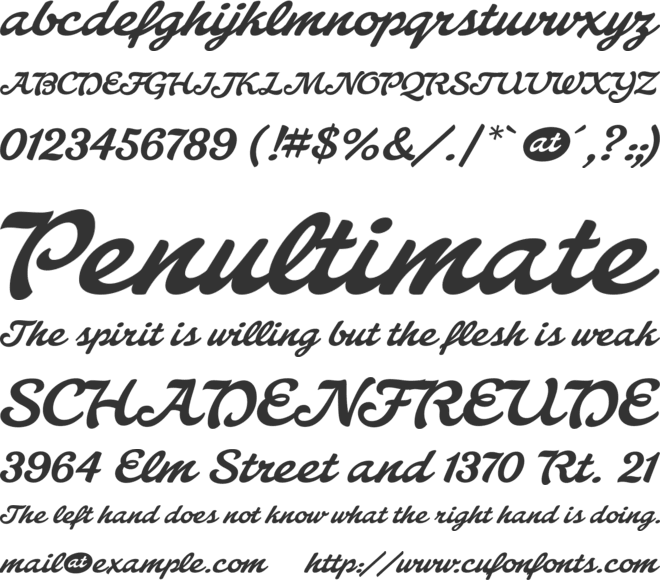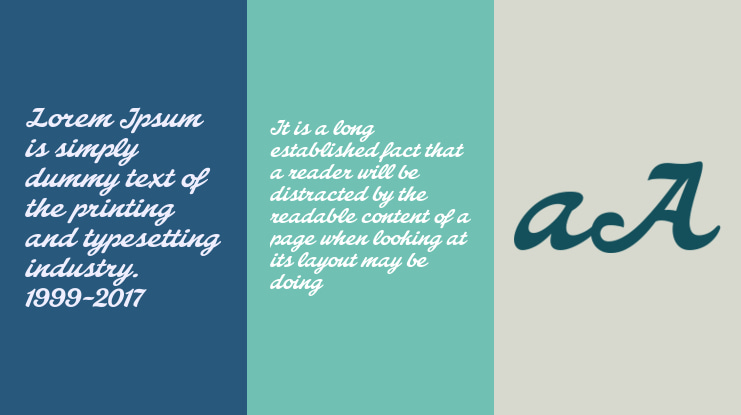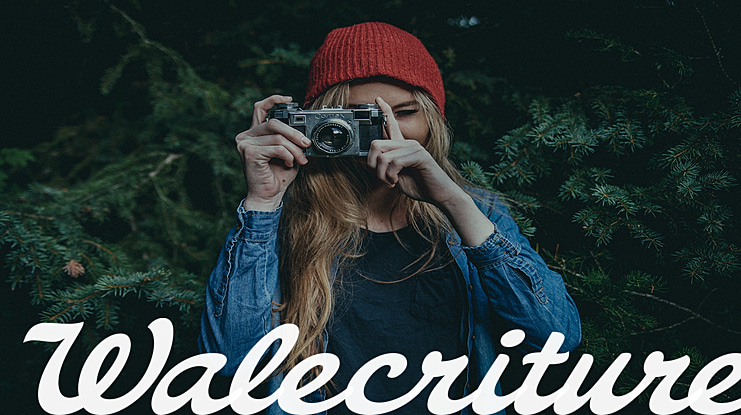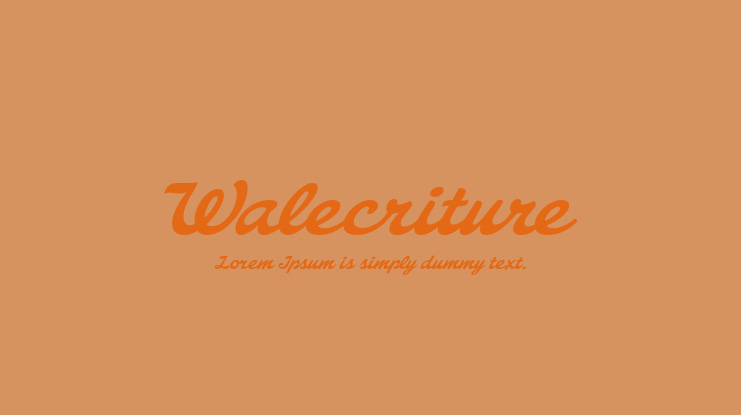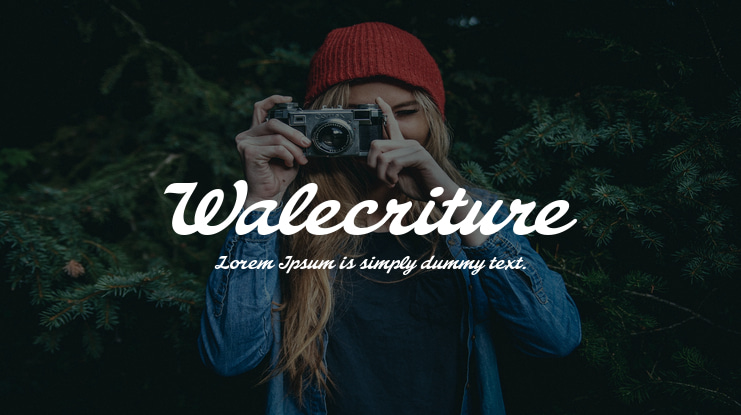
Walecriture Font
Walecriture, a logo font based on the very recent Walgreens logotype. Contains swashes for special type, as well as underline ornaments.